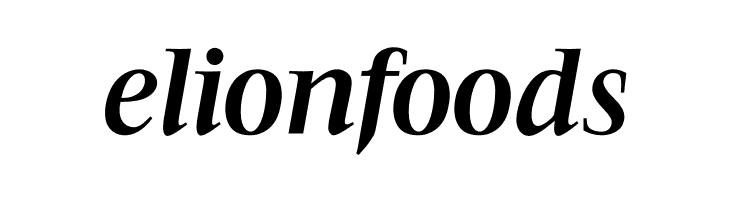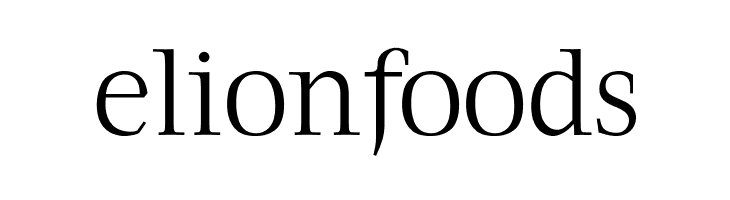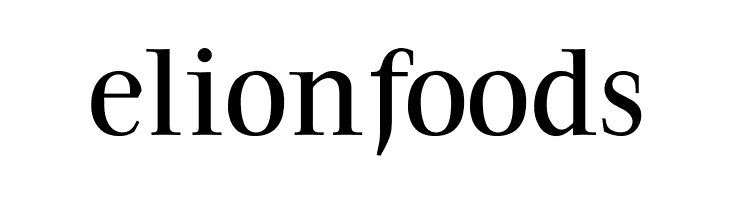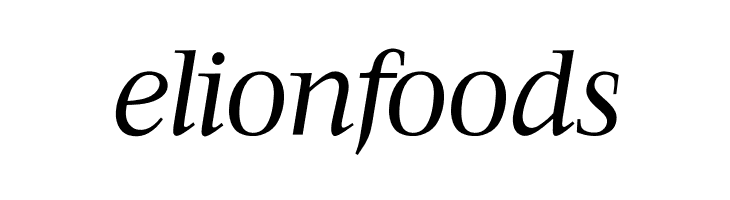
• OPTIFavrile-Bold
A bold, classic serif font with elegant proportions and strong strokes.
• OPTIFavrile-Light
A classic serif font with elegant, thin strokes and high contrast.
• OPTIFavrile-Medium
A classic serif typeface with elegant strokes and refined design.
• OPTIFavrile-Regular
A classic serif typeface with elegant, flowing lines and refined proportions.
• OPTIFavrileBold-Italic
An elegant, bold italic serif font with a classic yet modern style.
• OPTIFavrileLight-Italic
A light, italic serif font with elegant slant and classic details.
• OPTIFavrileMedium-Italic
An elegant serif font with a classic italic style and medium weight.
• OPTIFavrileRegular-Italic
An elegant italic serif font with smooth, flowing lines and a refined appearance.